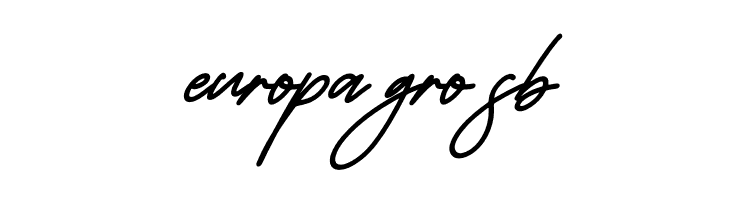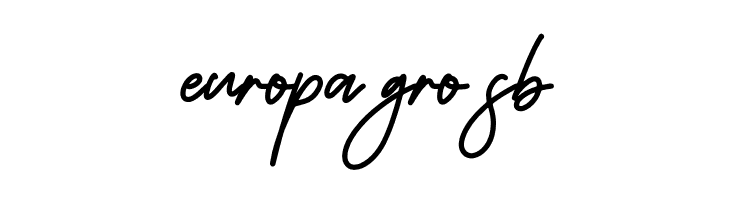
Fantelina Mignati Font
A fluid, elegant handwritten script with a sophisticated and cohesive style.
Fantelina Mignati Italic Font
A sophisticated and flowing script font with elegant, cursive letterforms.